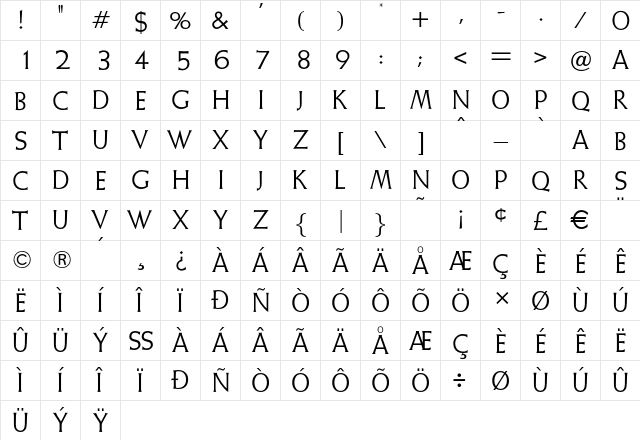
Weiss Initialen Regular
Design Context for Weiss Initialen Typeface
Weiss Initialen takes a measured approach to typography — its balanced proportions and neutral character make it a reliable workhorse for both digital and print work.